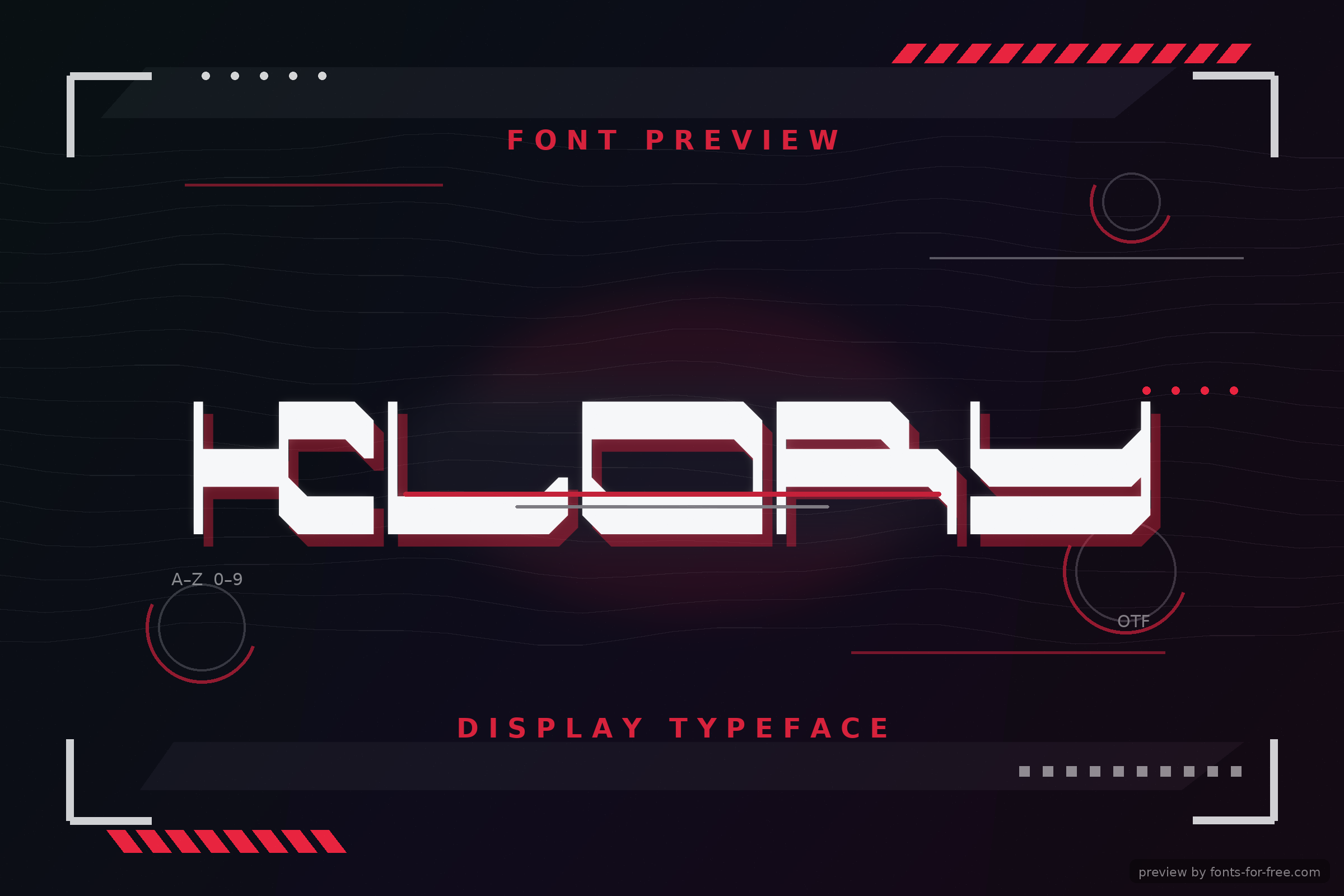
Klory is a futuristic display typeface designed by Difflux Designs and distributed under the SIL Open Font License 1.1. Its letterforms are wide, angular, and highly geometric, with squared curves, cut corners, and horizontal stencil-like breaks that create a technical, sci-fi rhythm. The Regular style has a solid medium weight with low contrast and compact internal spacing, making it strongest at large sizes rather than body text. Klory fits contexts such as game titles, cyberpunk posters, technology branding, album artwork, esports graphics, and digital interface-inspired headlines where a sharp, mechanical tone is appropriate.